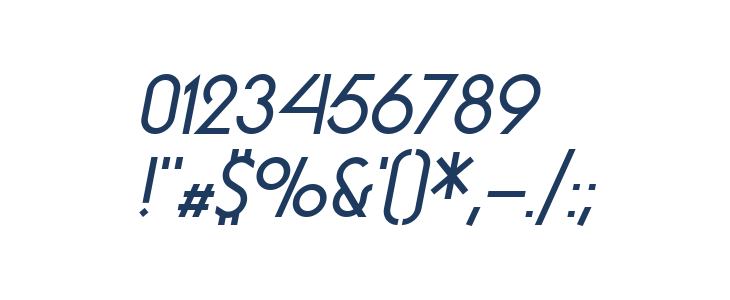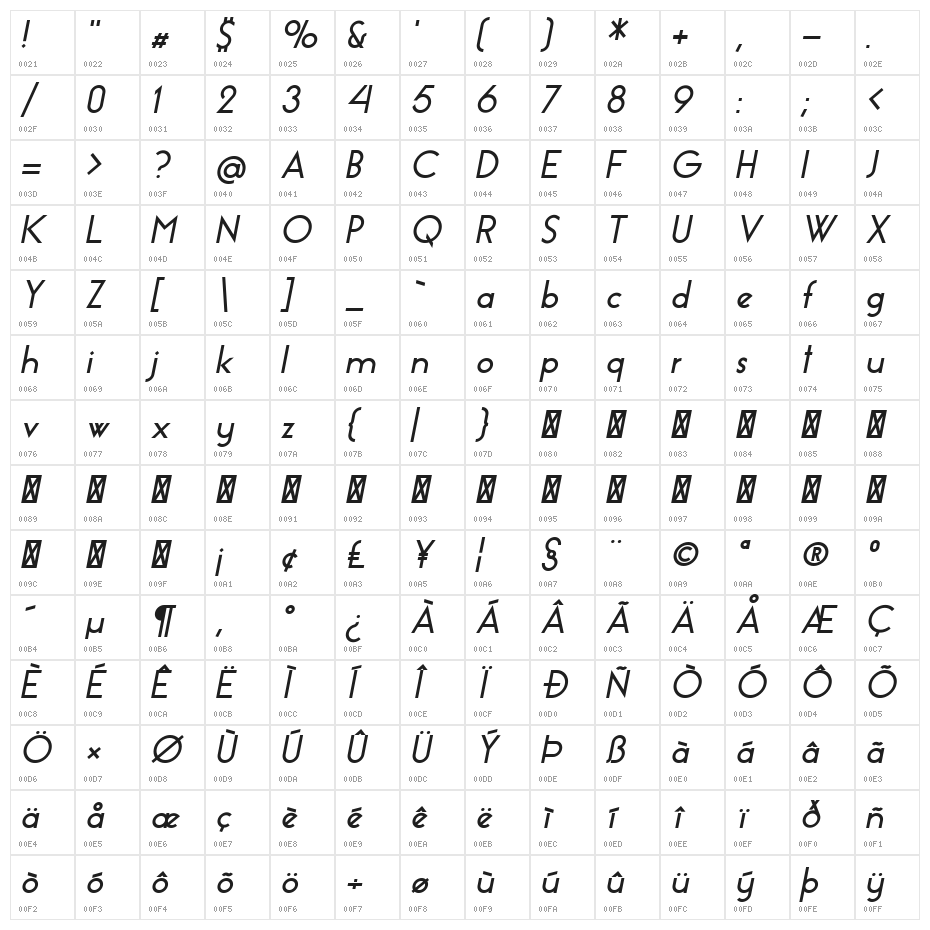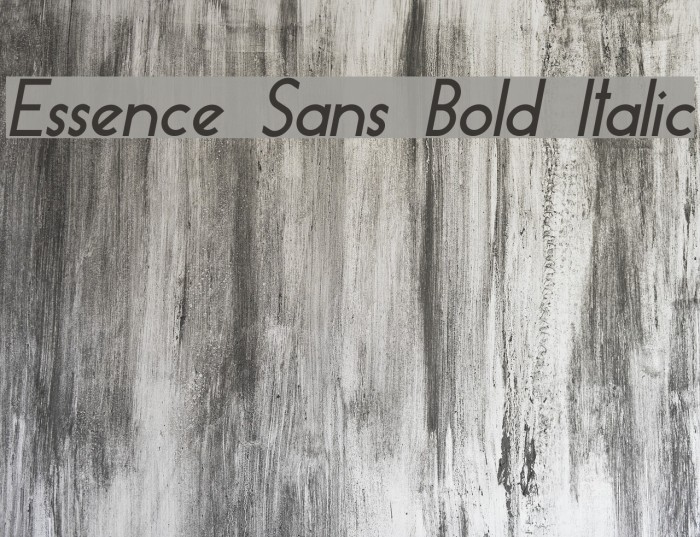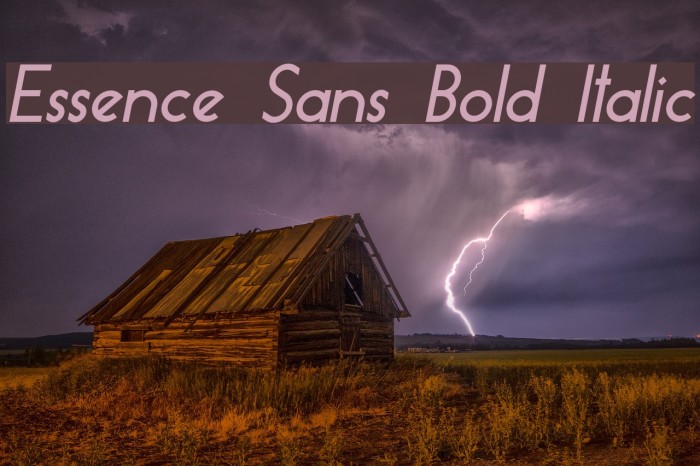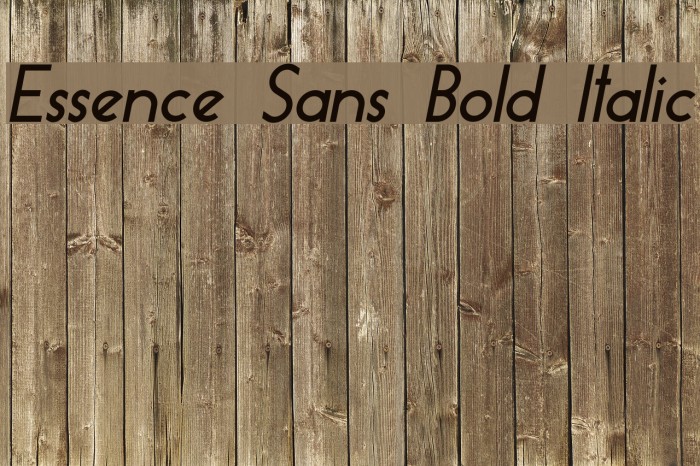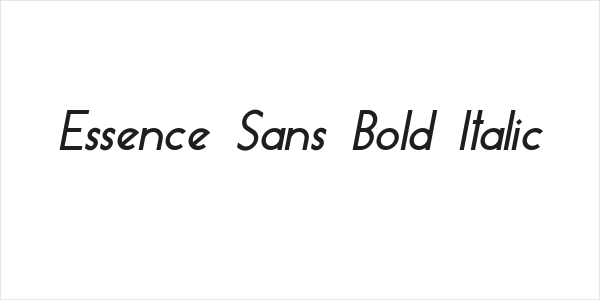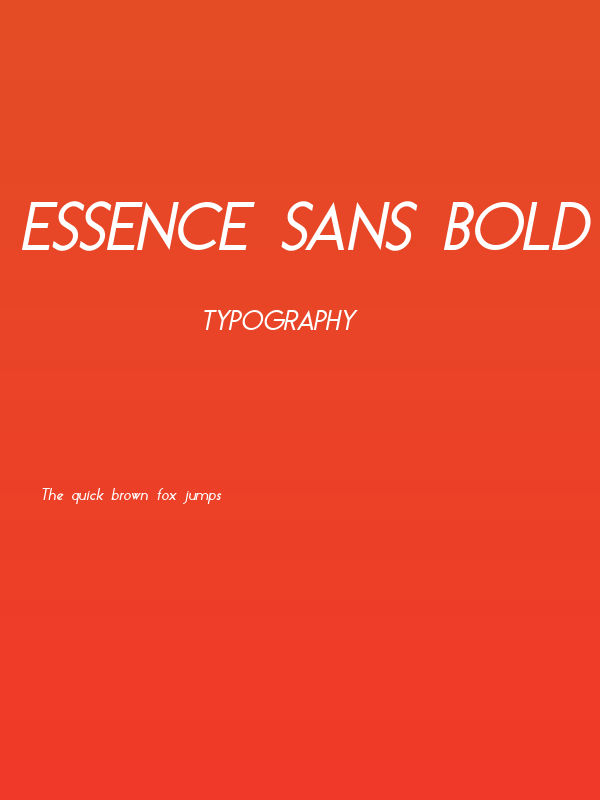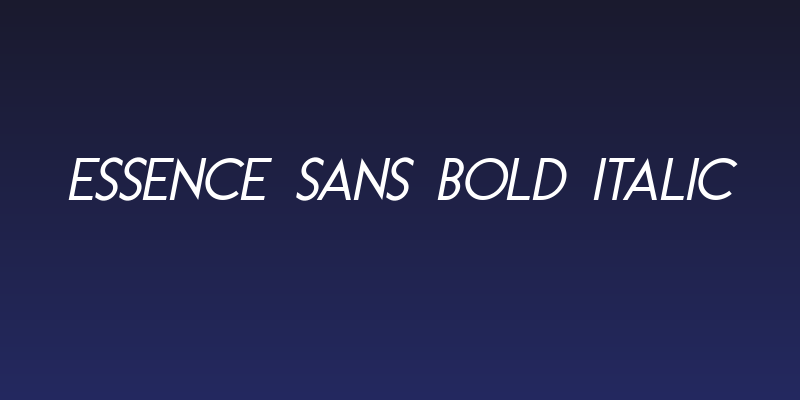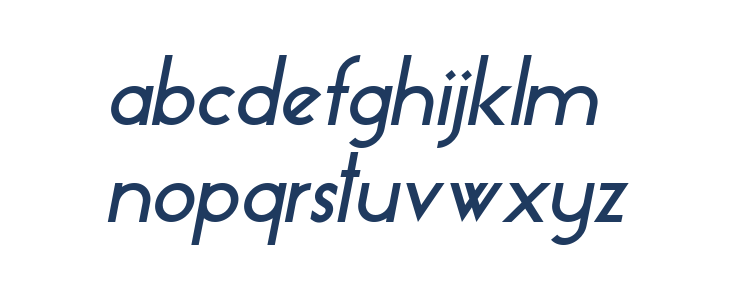
Essence Sans Bold Italic Font
Essence Sans Bold Italic Description
This font features a sleek and modern sans-serif style with a bold and italicized presentation. The characters are slightly slanted, giving a dynamic and forward-moving appearance. The strokes are consistent in thickness, providing a uniform look across all characters. The uppercase letters are tall and commanding, while the lowercase letters maintain a smooth and rounded form. The numerals are clear and easy to read, matching the overall boldness of the font. Special characters are designed with the same attention to detail, ensuring they integrate seamlessly with the rest of the typeface.